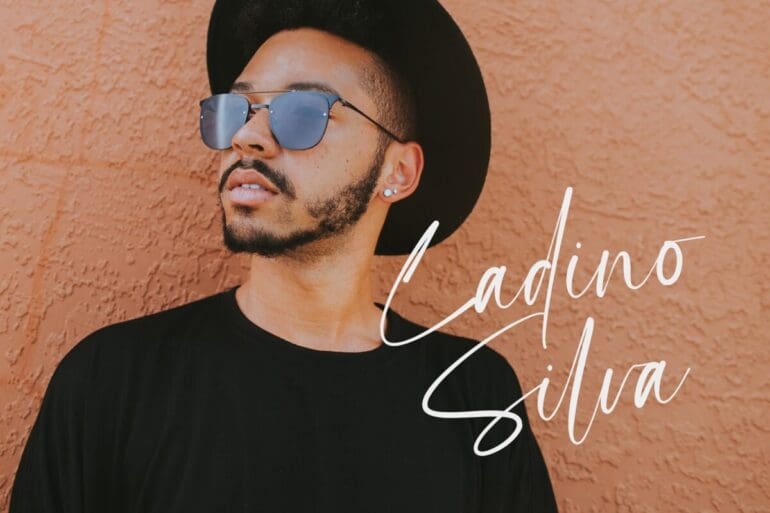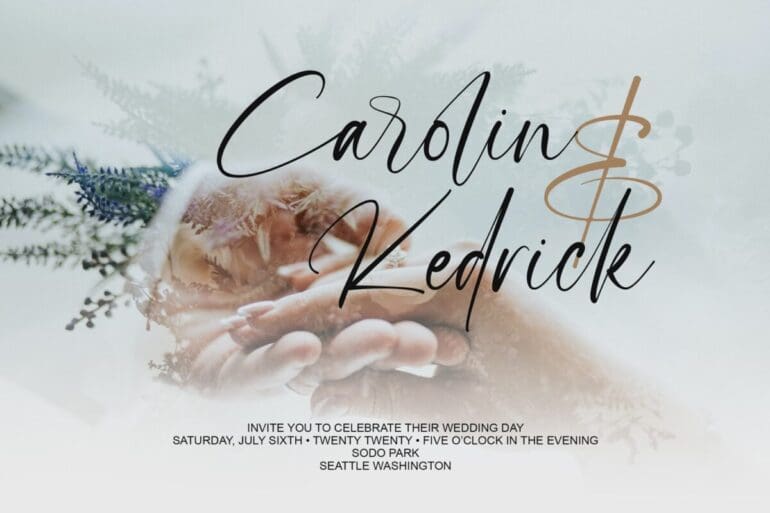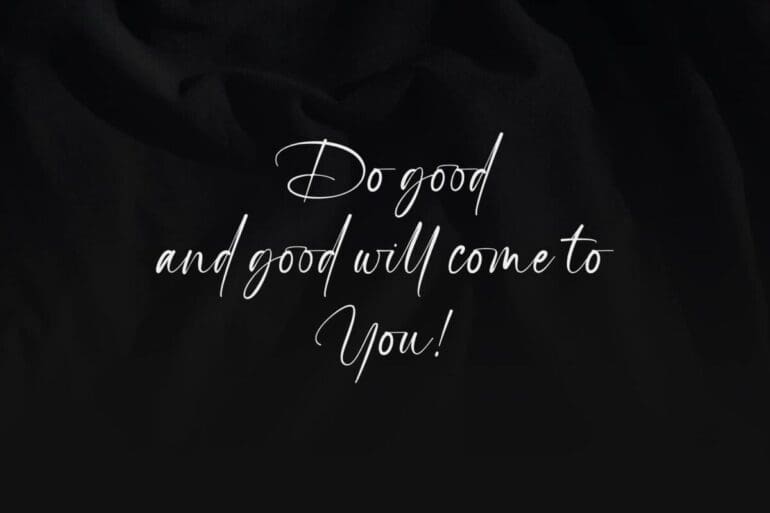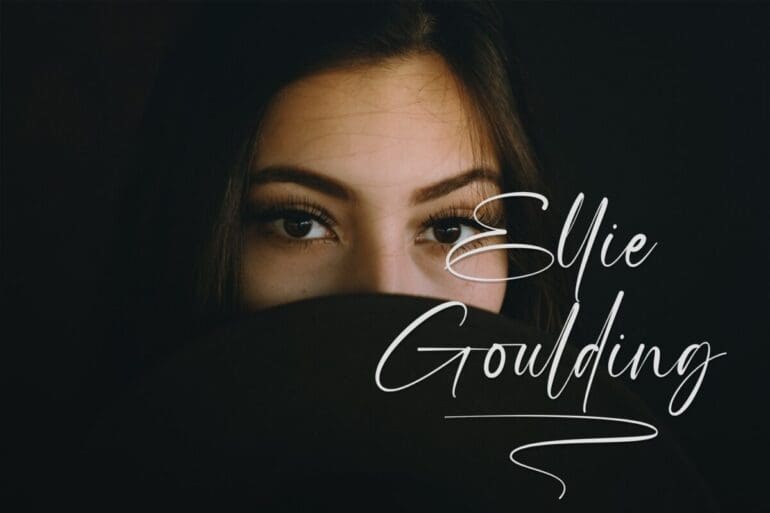
Highes Signature Font
Highes Signature is a beautiful and flowing script font with a modern style. This gentle font will look gorgeous on a variety of design ideas. This font is PUA encoded, which means you can access all of the glyphs and swashes with ease!